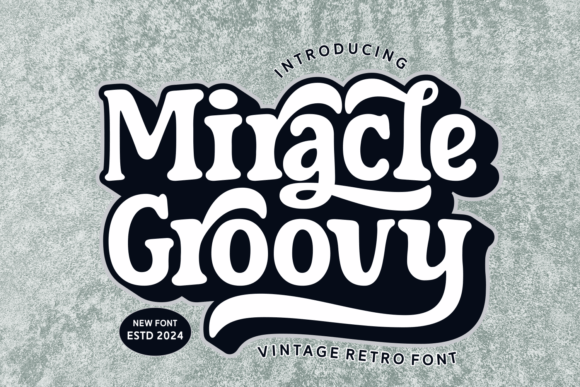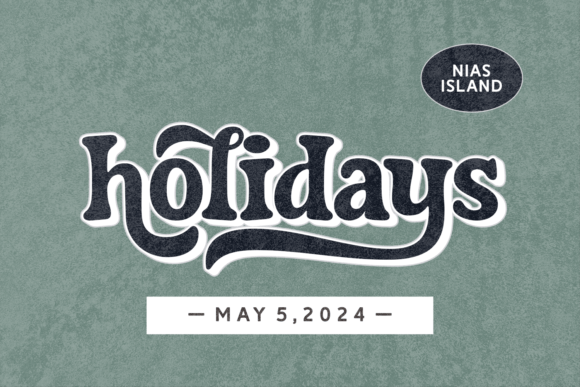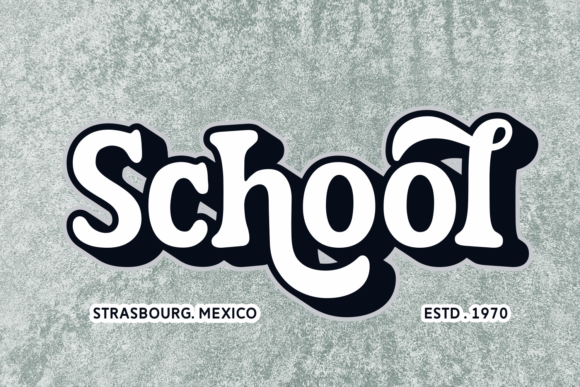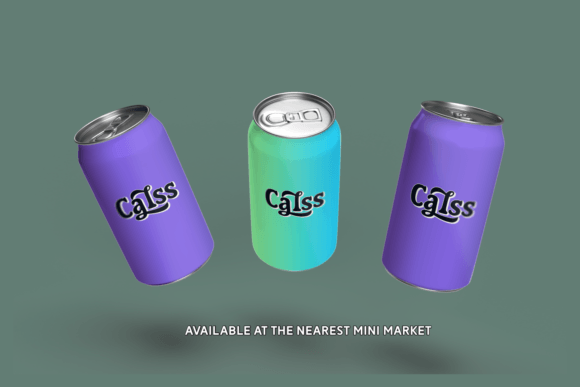
Miracle Groovy Font
About the Miracle Groovy Font
Make a bold statement with Miracle Groovy Font, a powerful and memorable font. Immerse yourself in Retro Groovy, a phenomenal 70s-inspired vintage font that will transport you back to an era of revolutionary design. This display font encapsulates all the nostalgia of the craft-centric decade but with a sublimation twist. Notably compatible with Svg and Cricut, Retro Groovy marries modernity with a dash of sartorial splendor, making it perfect for fashion-forward branding.
Miracle Groovy Font shines in headlines, logos, and short, impactful text for projects needing a retro-chic aesthetic. Its bold, playful energy is ideal for branding related to fashion, music, or vintage-inspired products. Avoid using it for body text or longform content; its decorative nature compromises readability in extended use.
Pairing it with a clean sans-serif like Helvetica Neue for body copy creates a strong contrast, balancing the font’s retro flair with modern readability. For a more cohesive vintage feel, consider pairing it with a classic serif font such as Garamond or a script font like Pacifico, depending on the desired level of formality.
Miracle Groovy Font’s core personality is bold and playful, with a touch of retro sophistication. It’s best suited for brands aiming for a nostalgic yet contemporary image, conveying a sense of fun and stylish confidence.
Miracle Groovy Font Usage Examples
Miracle Groovy Font Example